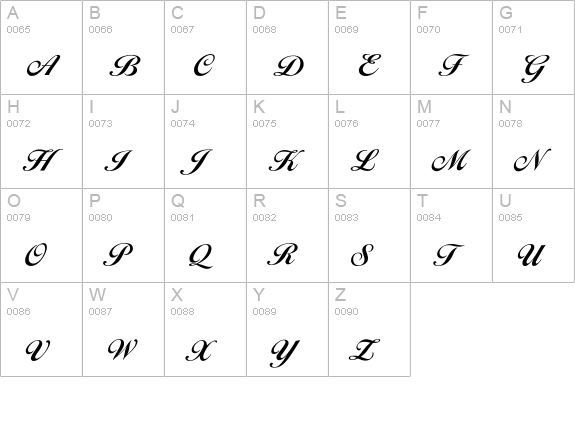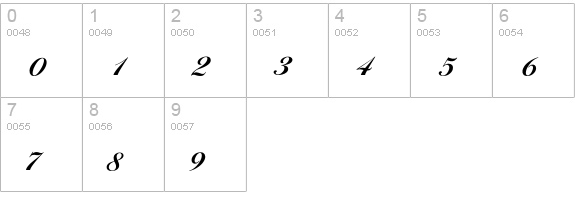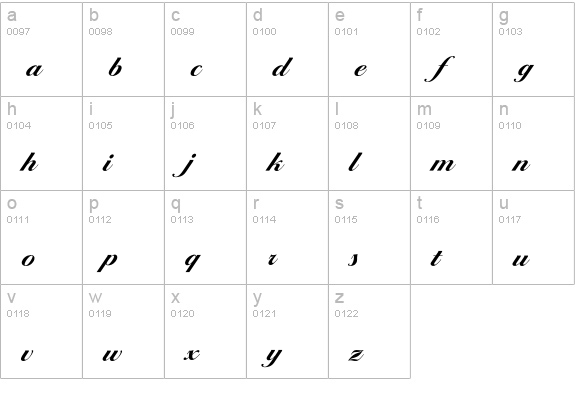
Iballantines-Bold is a strong, high-contrast variant in the Iballantines typeface family \xE2\x80\x94 well suited to headlines, attention-grabbing titles, and strong calls-to-action.
Introducing the stunning Iballantines-Bold font, a bold and powerful typeface that will instantly captivate your audience. With its strong presence and elegant curves, this font exudes confidence and sophistication, making it perfect for a wide range of designs and projects. Iballantines-Bold offers a harmonious balance between modernity and classic elegance, making it incredibly versatile. Whether you're designing a logo, creating a poster, or crafting a stylish website, this font will effortlessly elevate your work to the next level. One of the most remarkable aspects of Iballantines-Bold is that it is available for free. That's right, this incredible font can be freely downloaded at FontsMarket.com. Now, you can enhance your design projects without any additional cost, allowing you to unleash your creativity without limitations. With its clean and legible letterforms, Iballantines-Bold guarantees a seamless reading experience across various mediums. From bold headlines to attention-grabbing titles, this font will make a lasting impression on your audience. Its versatility extends to both print and digital designs, ensuring that your work looks exceptional in any context. Designed with meticulous attention to detail, Iballantines-Bold boasts exceptional precision and clarity. Each letter has been carefully crafted to maintain its integrity, whether it's displayed at a large scale or in a smaller size. With this font, you can rest assured that your typography will always look flawless. Iballantines-Bold is more than just a font; it's a statement. Its striking presence and timeless appeal will make your designs stand out from the crowd. So why wait? Download Iballantines-Bold for free at FontsMarket.com and unlock a world of possibilities for your next creative endeavor.